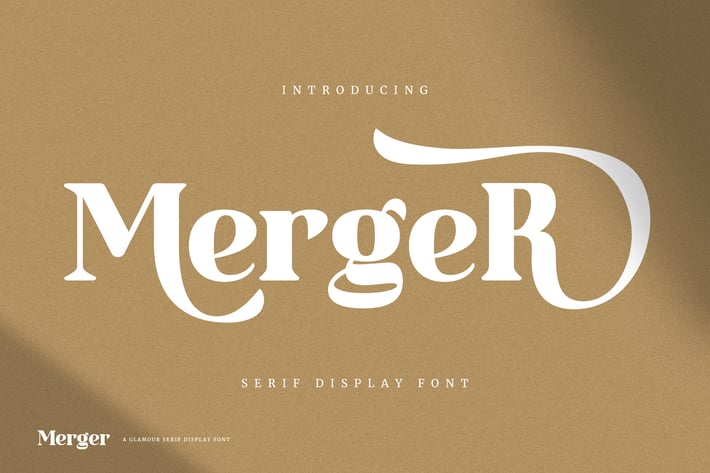
Merger - Serif Display Font
Introducing “Merger” - A serif display font it has both modern and retro look. Merger also includes a bunch of alternates characters and multilingual support. Merger is well-suited for advertising, branding, logotypes, packaging, titles, headlines and editorial design and so much more.
Font Features
Alternatives Characters
Numerals & Punctuation